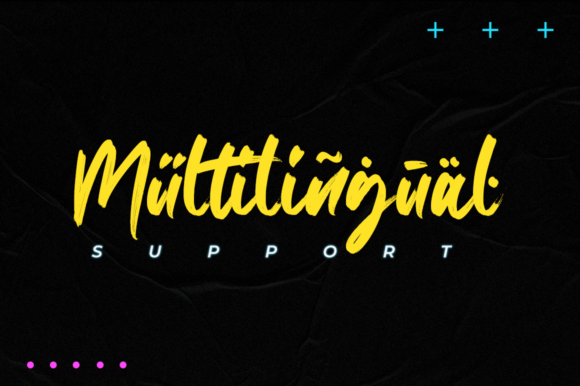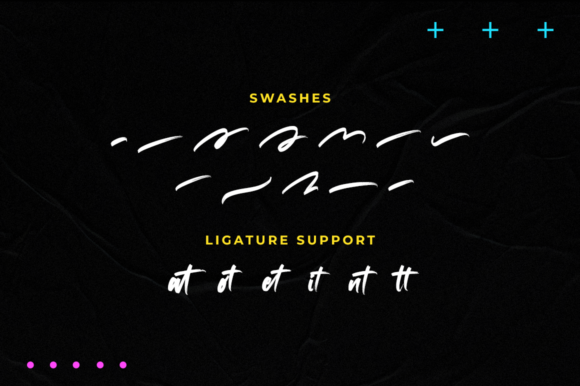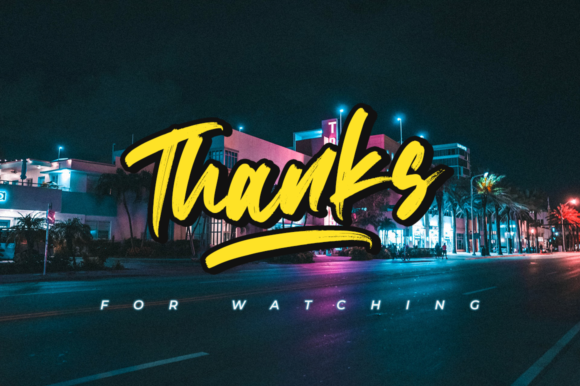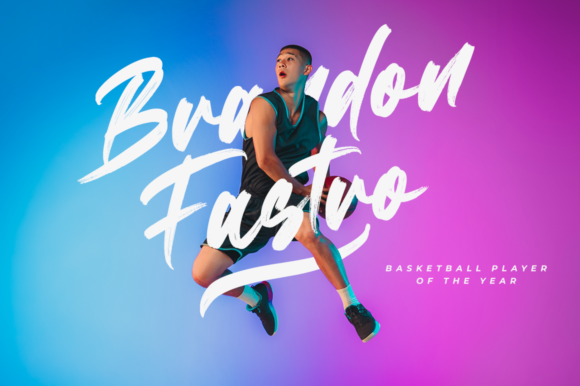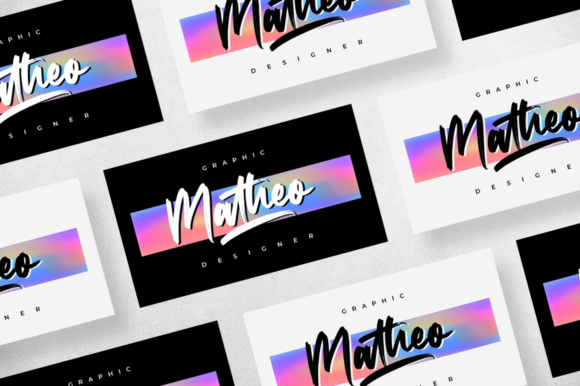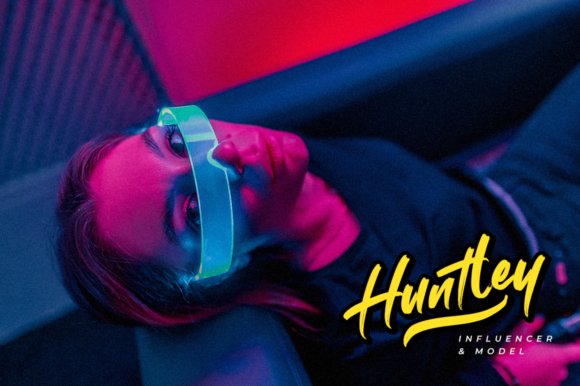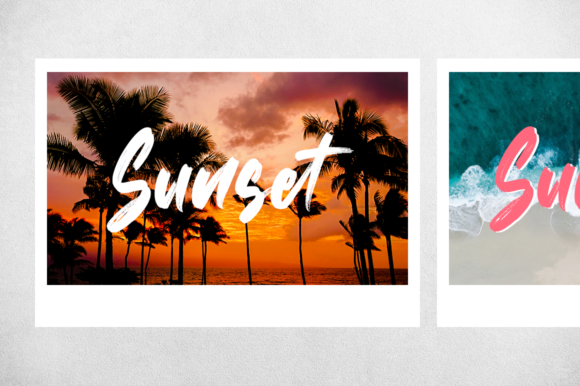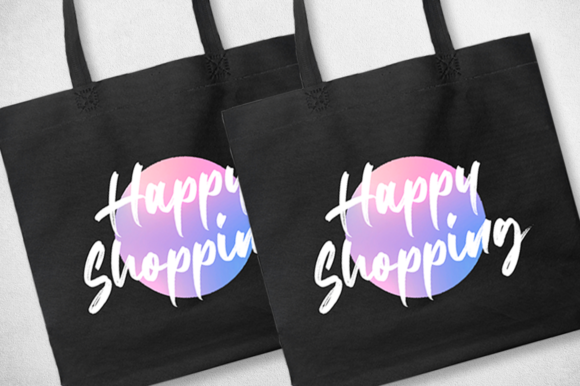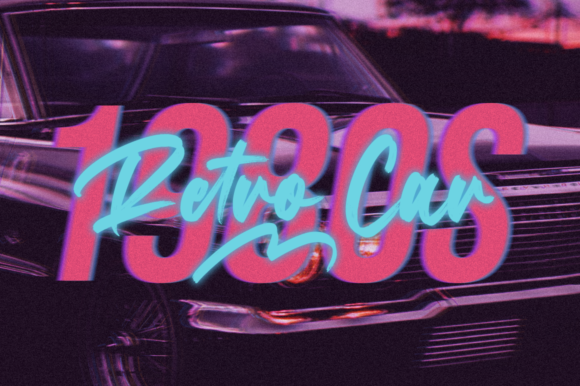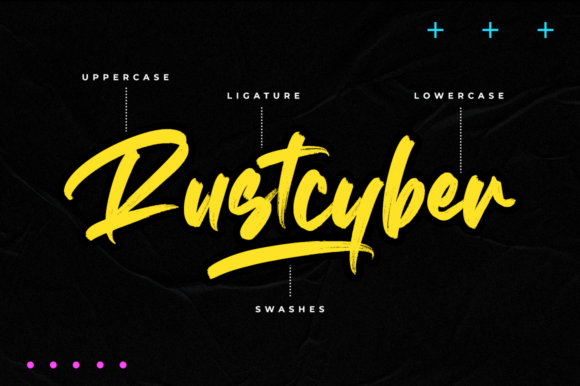
Rustcyber Font
About Rustcyber Font
Rustcyber is a cool, brushed handwritten font. Add this bold font to your favorite logos, apparel, labels and branding. You will love the results!